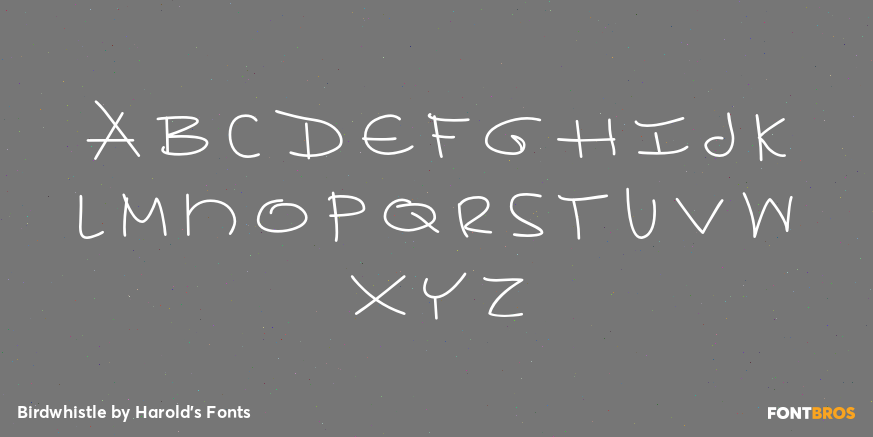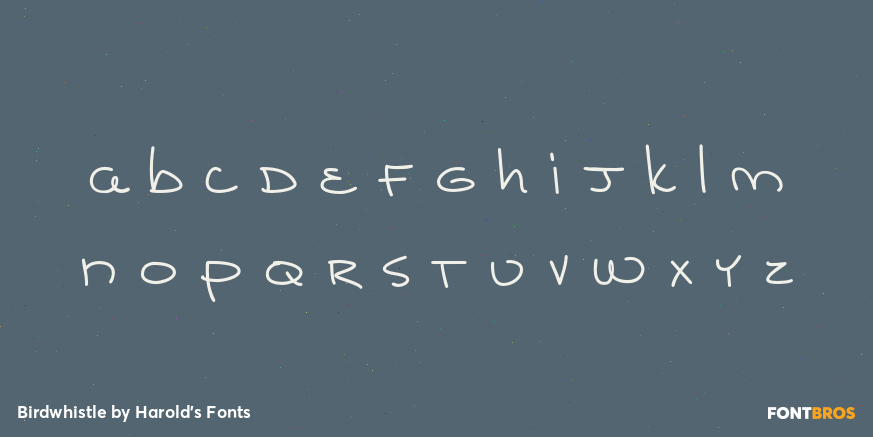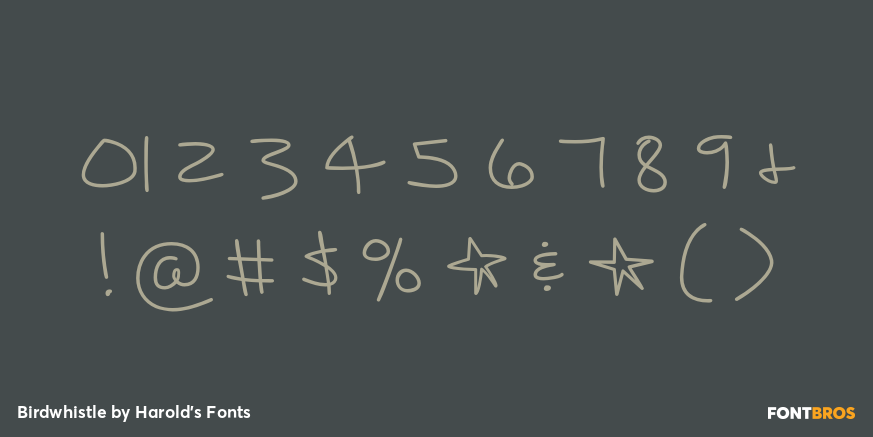
Birdwhistle
Font Family by Harold's Fonts
Birdwhistle is a handwriting font with an artistic flair. Inspired by notes from my friend, artist Willie Marlowe, Birdwhistle is like its namesake: pretty, playful, distinctive and a little unpredictable. Birdwhistle mixes upper- and lowercase in a creative way, and includes alternate characters for an even more spontaneous look.